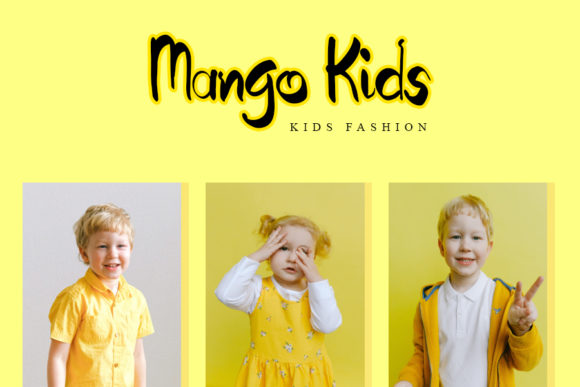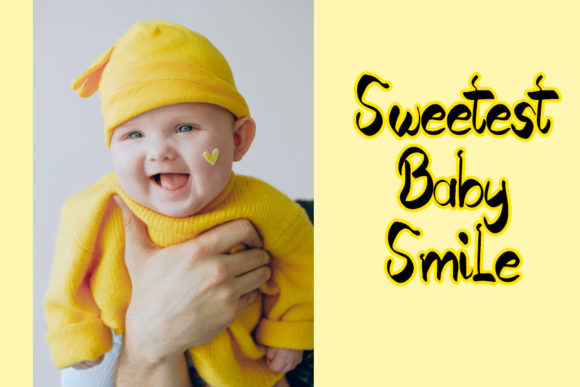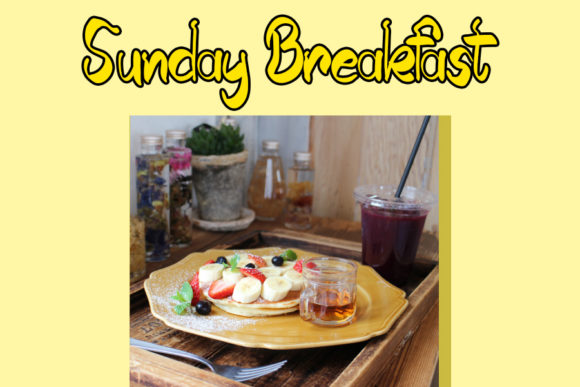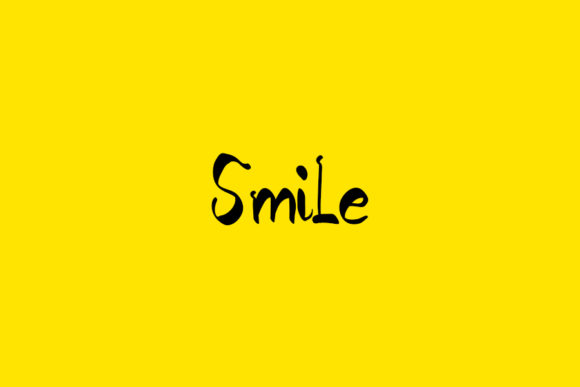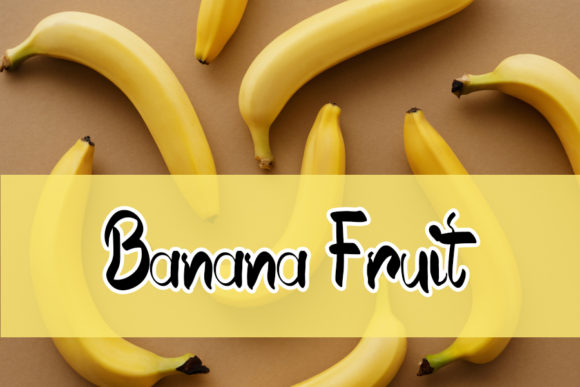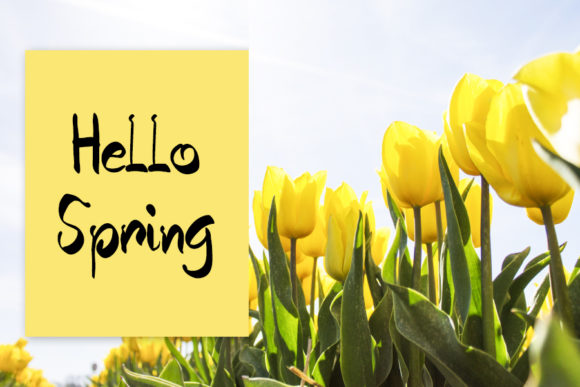
Remember that moment when you’re brainstorming ideas for a new project and suddenly, everything clicks? You see the perfect font, the ideal color palette, and the design starts to come together in your mind. For designers, finding the right font can be the game-changer that takes a project from meh to mesmerizing.
Enter Baby Rabbit Font, a charming handwritten font that’s sure to bring a smile to your face. This playful, quirky font is perfect for logos, branding, posters, and all sorts of crafty DIY projects. Whether you’re a seasoned designer or a creative hobbyist, Baby Rabbit Font is a valuable addition to your design toolkit.
With its cute and friendly vibe, Baby Rabbit Font is the perfect way to add some personality to your designs. In this article, we’ll dive deeper into the world of Baby Rabbit Font and explore its many uses and benefits.
Baby Rabbit Font Key Features
• Font Family: Baby Rabbit Font is a cute and playful sans-serif font family.
• Unique Characteristics: This font features a distinctive rabbit character and cute illustrations, making it perfect for children’s books, nursery decorations, and other projects that require a playful touch.
Designer Review: Baby Rabbit Font
Overall, I think Baby Rabbit Font has some great qualities that make it a lovely addition to any design project.
• ✨ Unique and whimsical style that’s perfect for children’s books, nursery decor, or other playful projects.
• ✨ Well-designed characters with clear letterforms and elegant curves.
• ✨ The font comes in multiple weights and styles, making it easy to customize for different design needs.
• ✨ It’s a great choice for designs that need a touch of nostalgia and warmth.
• ⚠️ Some characters may appear slightly irregular or inconsistent in certain font sizes or line heights.
• ⚠️ The font may not be suitable for designs that require a high level of precision or professionalism.
• ⚠️ Some users may find the font’s whimsical style overwhelming or too playful for certain design projects.
While Baby Rabbit Font has some limitations, its unique style and versatility make it a great choice for the right project. It’s perfect for designs that need a touch of whimsy and personality, but may not be the best fit for more formal or professional designs.
Tips for Getting the Most Out of Baby Rabbit Font
Use the Baby Rabbit Font to create playful and whimsical designs, such as:
• Children’s birthday invitations
• Infant product labels
• Children’s book illustrations
Experiment with different font sizes, colors, and styles to create unique and eye-catching designs.
The recommended font size range for the Baby Rabbit Font is 10-48 points (or 13-64 pixels) for body text and 48-72 points (or 64-96 pixels) for headings. This range provides optimal readability and visual appeal for various design applications.